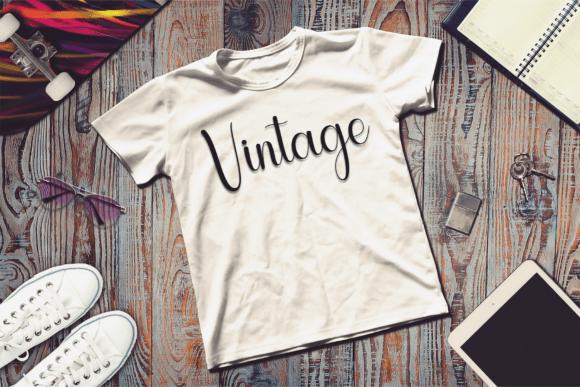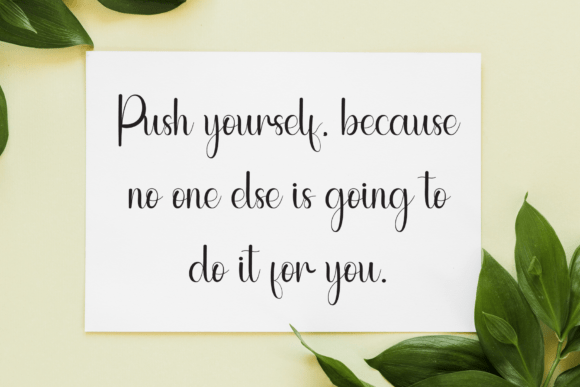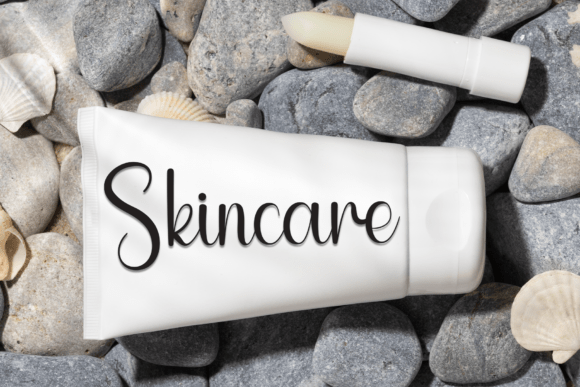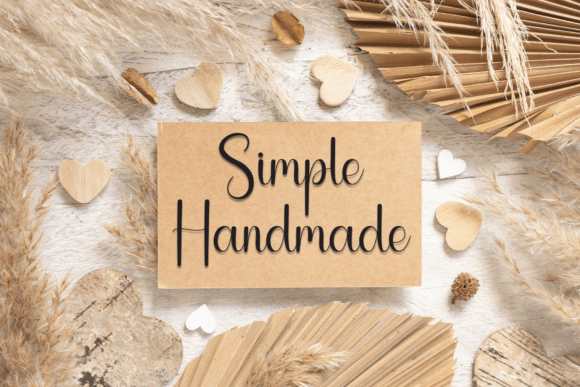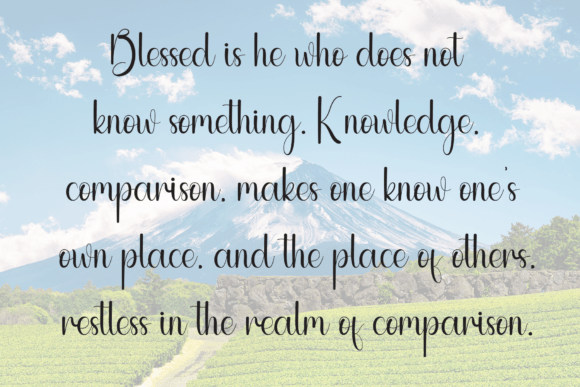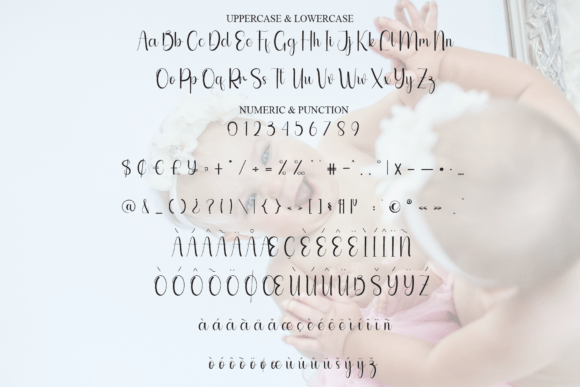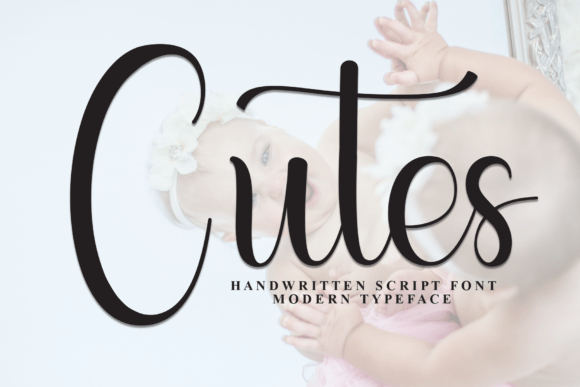
Cutes Font: Elevate Your Designs with a Stylish Handwritten Script
In the world of typography, fonts play a crucial role in conveying the tone and personality of a design. For designers and crafters looking to add a touch of elegance and playfulness to their projects, Cutes Font is an excellent choice. This stylish handwritten script font seamlessly blends modern sophistication with a charming, personal feel, making it perfect for a wide range of applications.
The Unique Charm of Cutes Font
Cutes Font stands out with its fluid strokes and charming curves, which bring a sense of warmth and creativity to any design. Unlike more traditional fonts, Cutes offers a unique blend of modern elegance and playful charm, making it an ideal choice for designers looking to create something truly special. Whether you’re working on a logo, packaging, invitation, or any other project, Cutes Font adds a personal touch that sets it apart.
Key Features of Cutes Font
- Handwritten Script Style: Cutes Font boasts a beautiful, handwritten script style that adds a personal and creative feel to your designs.
- Modern Elegance: With its fluid strokes and charming curves, Cutes brings a touch of modern elegance to any project.
- Playful Touch: The font’s playful charm makes it perfect for designs that require a bit of whimsy and character.
- Versatility: Cutes Font is incredibly versatile, making it suitable for a wide range of applications, from logos and packaging to invitations and more.
- Easy to Read: Despite its elegant and playful nature, Cutes Font remains easy to read, ensuring your message is communicated clearly.
Ideal Uses for Cutes Font
Cutes Font’s versatility makes it suitable for various design projects. Here are some ideal uses for this beautiful font:
- Logos: Create a memorable brand logo with a personal touch that stands out from the crowd.
- Packaging: Add a touch of elegance and playfulness to your product packaging, making it more appealing to customers.
- Invitations: Whether it’s a wedding invitation, birthday party, or any other event, Cutes Font adds a charming and sophisticated touch.
- Social Media Graphics: Elevate your social media presence with eye-catching graphics that showcase your personality or brand.
- Stationery: From greeting cards to letterheads, Cutes Font brings a level of sophistication and charm to your stationery.
Tips for Using Cutes Font Effectively
To get the most out of Cutes Font, consider the following tips:
- Pair with Complementary Fonts: For maximum impact, pair Cutes Font with complementary fonts that enhance its elegance and playfulness.
- Experiment with Colors: Don’t be afraid to experiment with different colors to find the perfect match that brings out the best in Cutes Font.
- Use for Headings and Titles: Cutes Font is perfect for headings and titles, where its elegant and playful nature can be truly appreciated.
- Consider the Context: Always consider the context in which you’ll be using Cutes Font, ensuring it aligns with the overall tone and message of your design.
Cutes Font is a stylish handwritten script font that offers the perfect blend of modern elegance and playful charm. Its fluid strokes and charming curves bring a personal feel to any design, making it ideal for logos, packaging, invitations, and more. By incorporating Cutes Font into your projects, you can add warmth, sophistication, and creativity, setting your designs apart from the rest. Whether you’re a designer or crafter, Cutes Font is sure to become a valuable addition to your typography toolkit.